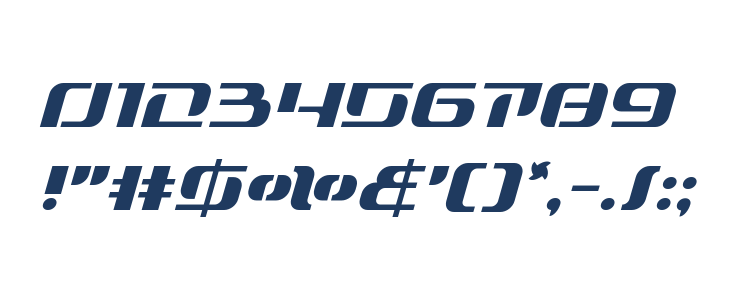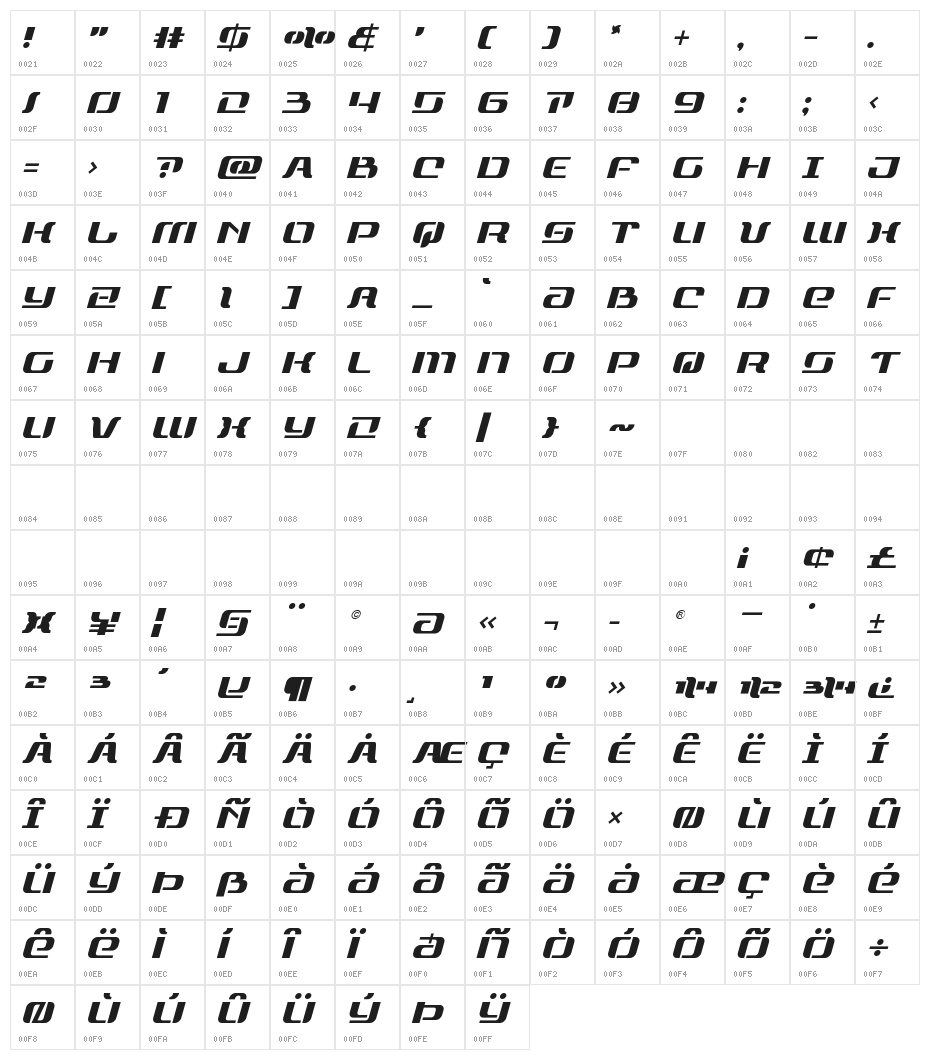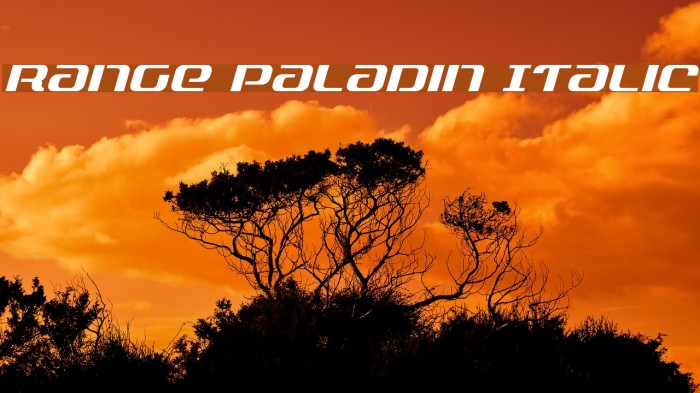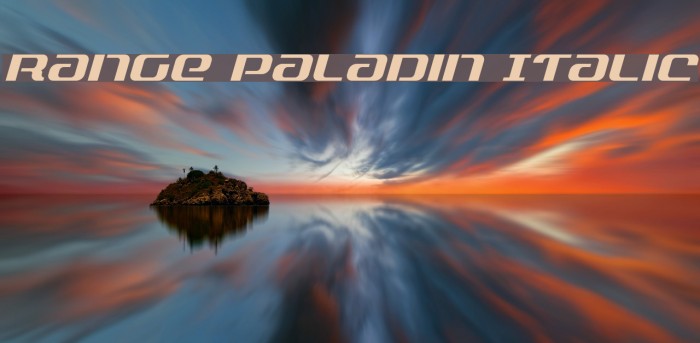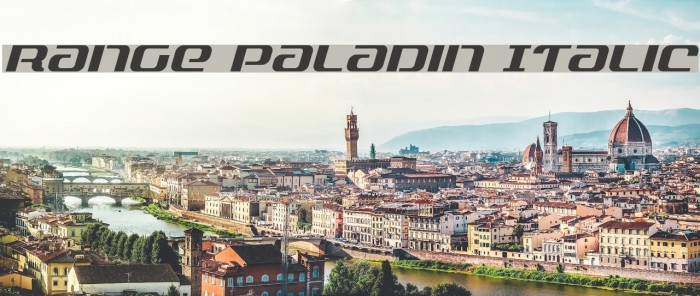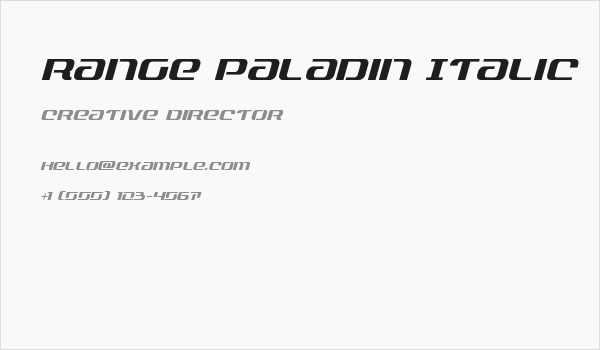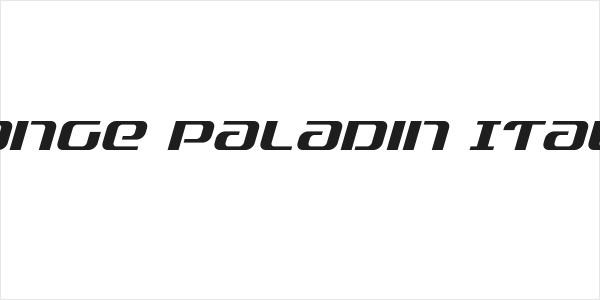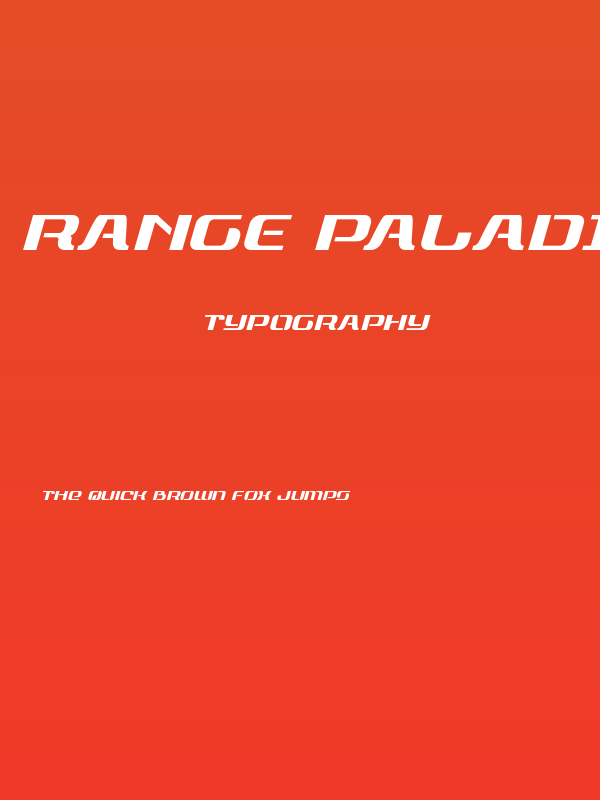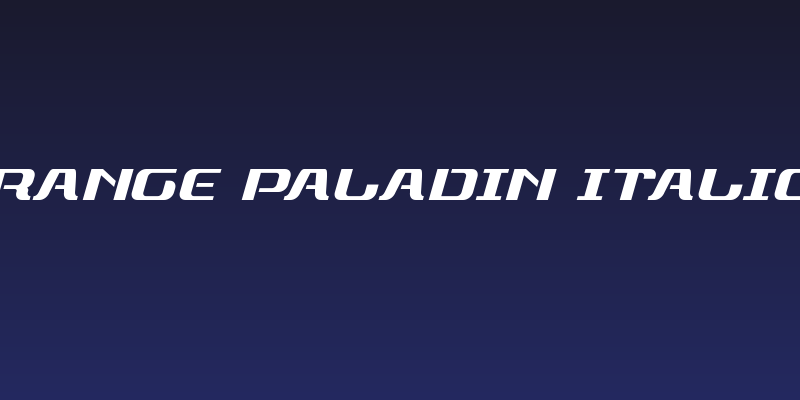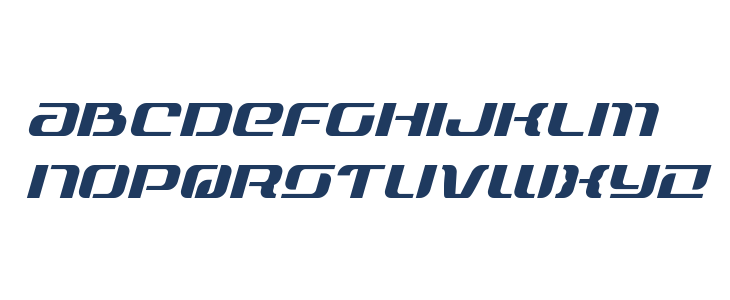
Range Paladin Italic Font
Range Paladin Italic Description
This font features a dynamic and futuristic design, characterized by its italicized and angular letterforms. The strokes are bold and consistent, creating a strong visual impact. Each character is crafted with a sense of motion, giving the font an energetic and modern feel. The uppercase and lowercase letters maintain a uniform style, with sharp edges and a slightly condensed appearance. The numerals and special characters are designed to complement the overall aesthetic, ensuring readability while maintaining the font's distinctive style.
Use CaseLogos, Headlines
Proposed ProjectsIdeal for technology branding, sports team logos, and modern advertising campaigns.